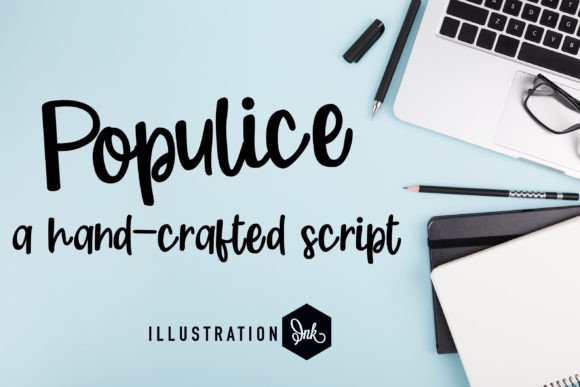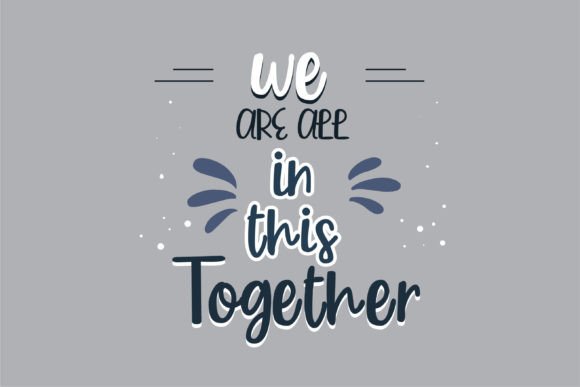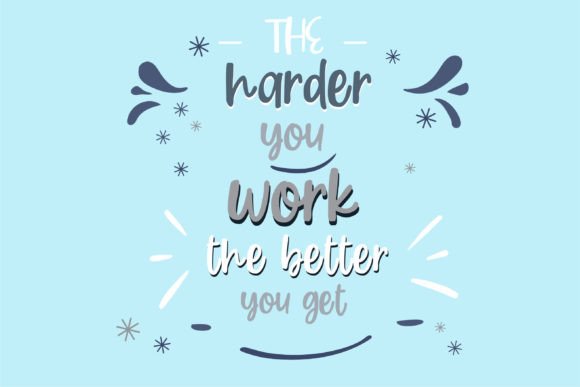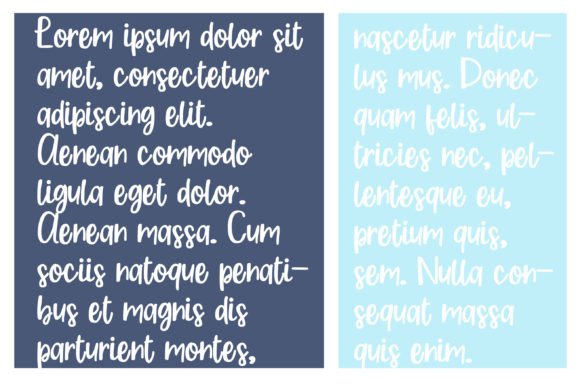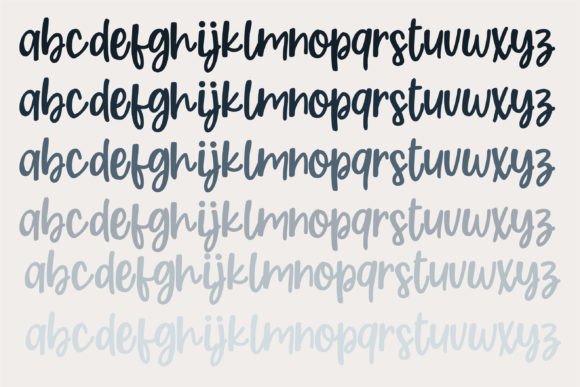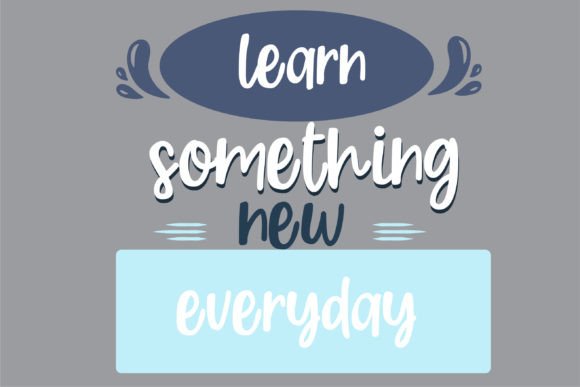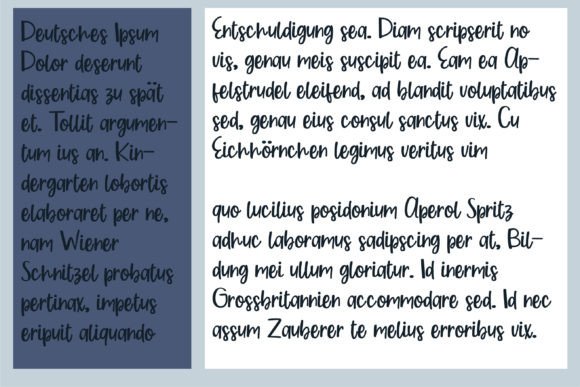
Populice Font
About Populice Font
Meet our playful and hand-crafted script, a casual cursive font designed to infuse a sense of fun into any project. Versatile and charming, this script is a fantastic choice for a variety of applications, including storybooks, clothing designs, branding, menus, logos, and much more.
The casual cursive style of this font brings a dynamic and approachable feel, making it ideal for storybooks where the text can come to life with a touch of whimsy. The fluidity of the characters adds a personal and expressive touch, enhancing the storytelling experience.
In the realm of clothing design, this script is a perfect fit, adding a playful and stylish element to garments. Whether it’s on a T-shirt, a hoodie, or any other apparel item, this font brings a youthful and energetic vibe to fashion.
Branding, menus, and logos are other domains where this fun and hand-crafted script shine. It can inject personality into your brand, make menus more visually engaging, and create memorable logos that stand out. The versatility of this script ensures it adapts seamlessly to different design contexts.
Imagine this script in a storybook, where it brings characters and narratives to life with its lively cursive style. Picture it on clothing items, transforming them into statements of individuality and style. Envision it in a logo or on a menu, where it adds a touch of fun and creativity.
In conclusion, this fun and hand-crafted script are more than just letters; it’s a creative tool that adds a joyful and dynamic element to your projects. Whether you’re working on storybooks, clothing designs, branding, menus, logos, or anything in between, let this script be the playful touch that elevates your designs and captivates your audience.